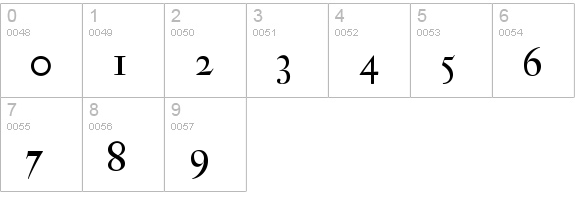
Antique Moderne CE Font Details
Antique Moderne CE font is a stunning typeface that effortlessly combines vintage charm with a modern twist. Its intricate details and elegant curves make it perfect for adding a touch of sophistication to any design project. This timeless font is versatile and can be used for a variety of purposes, from branding to editorial design. The best part about Antique Moderne CE font is that it is completely free to download at FontsMarket.com. This means you can enhance your creations with this beautiful typeface without having to spend a dime. Don't miss out on the opportunity to elevate your designs with the timeless appeal of Antique Moderne CE font – download it for free today!